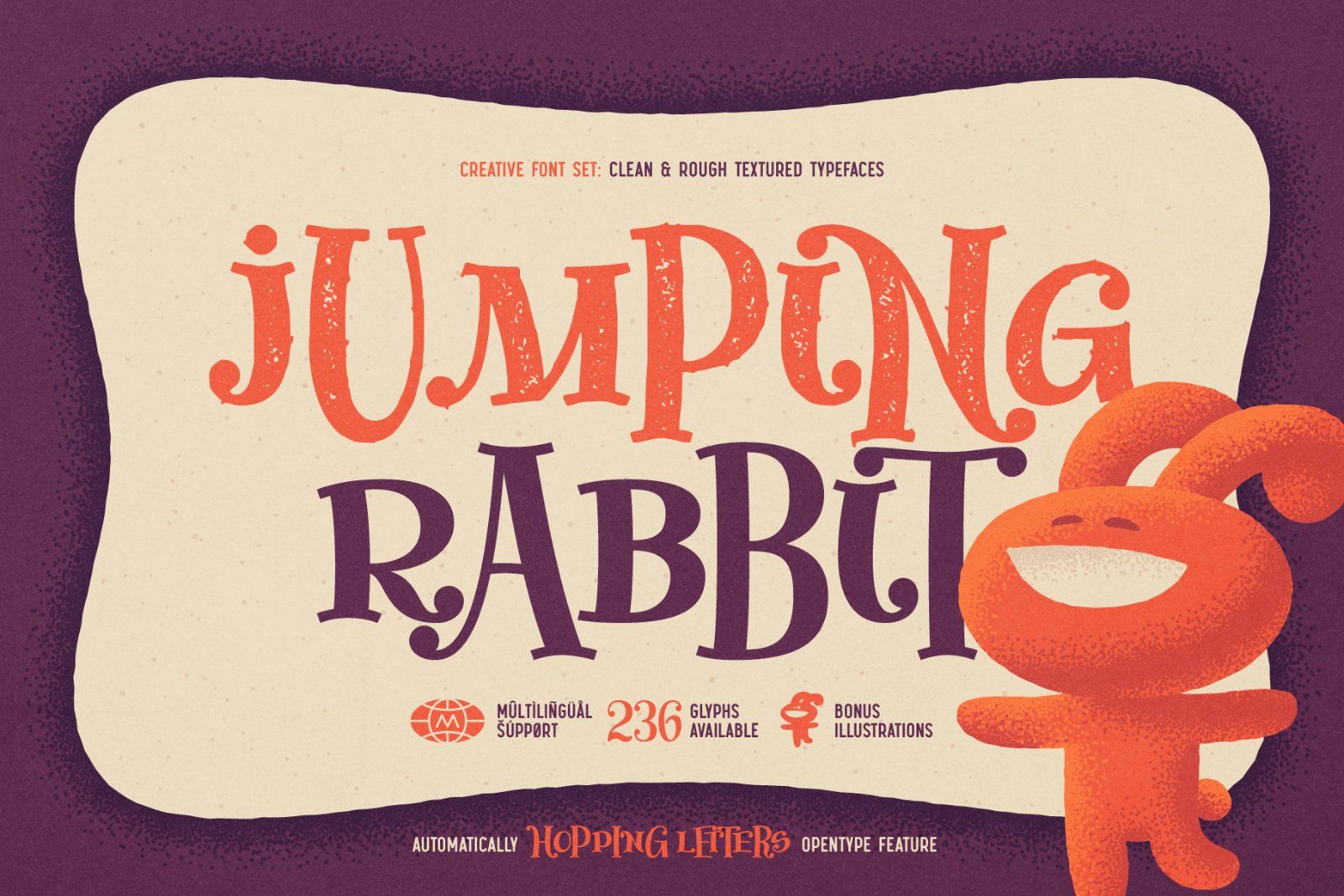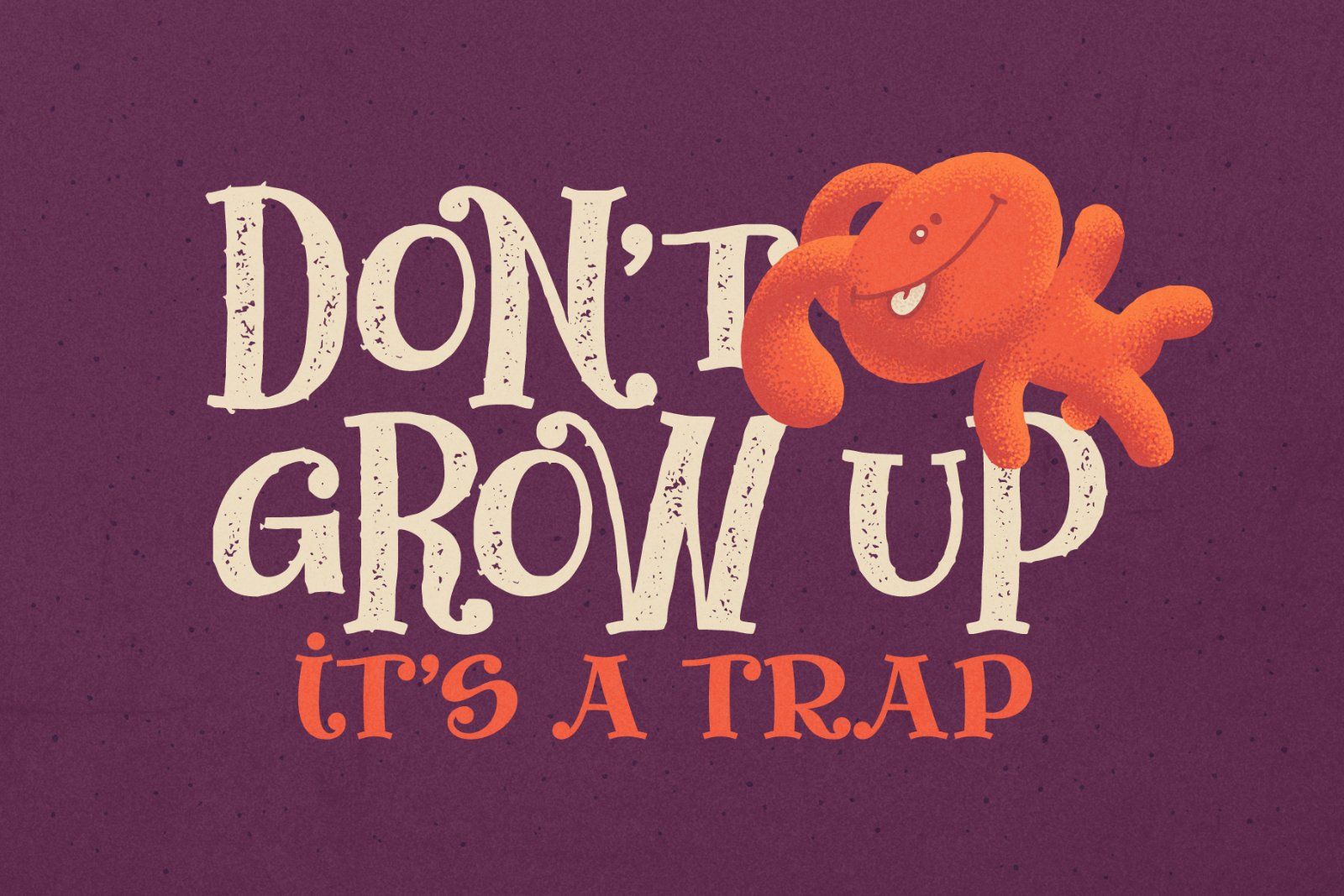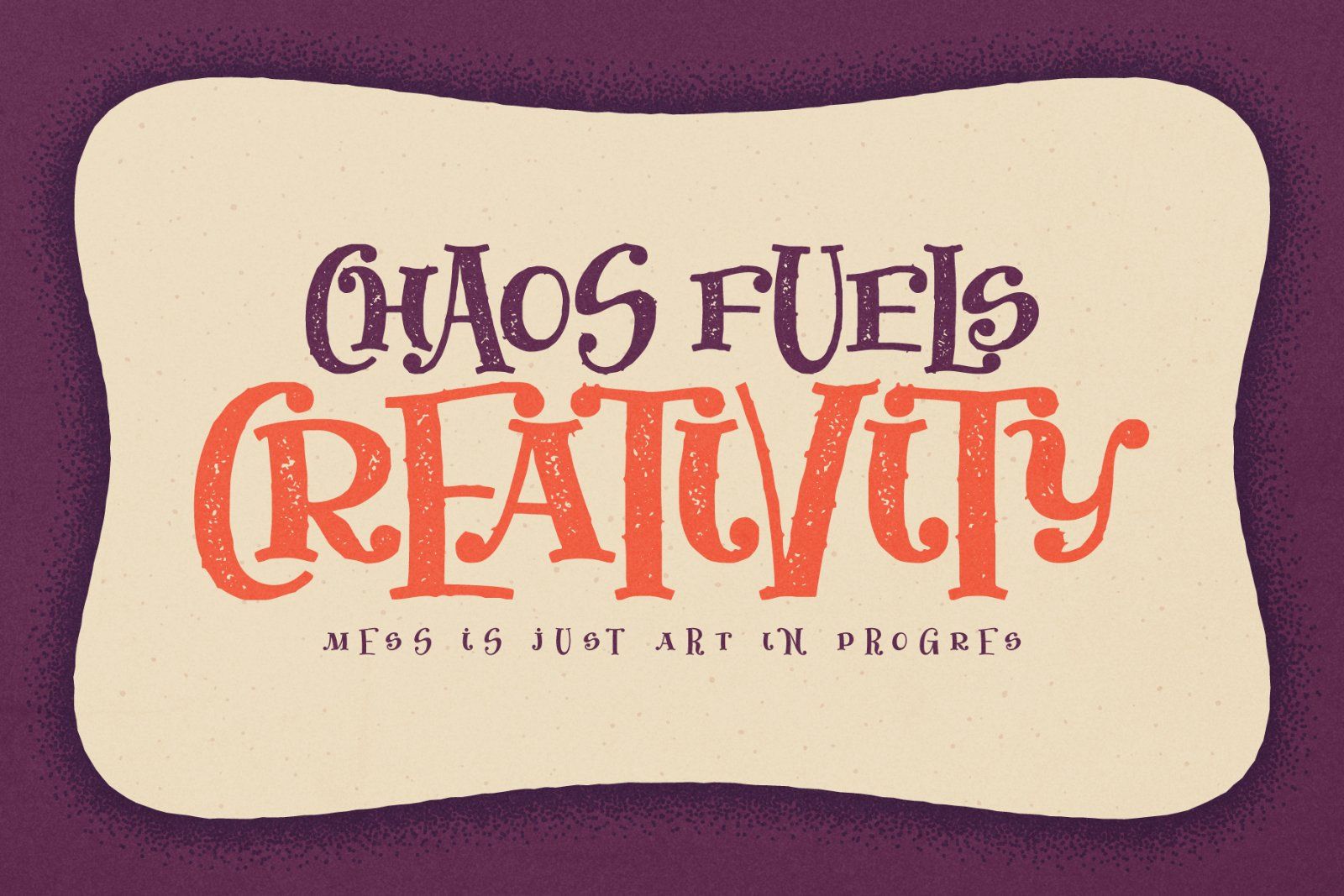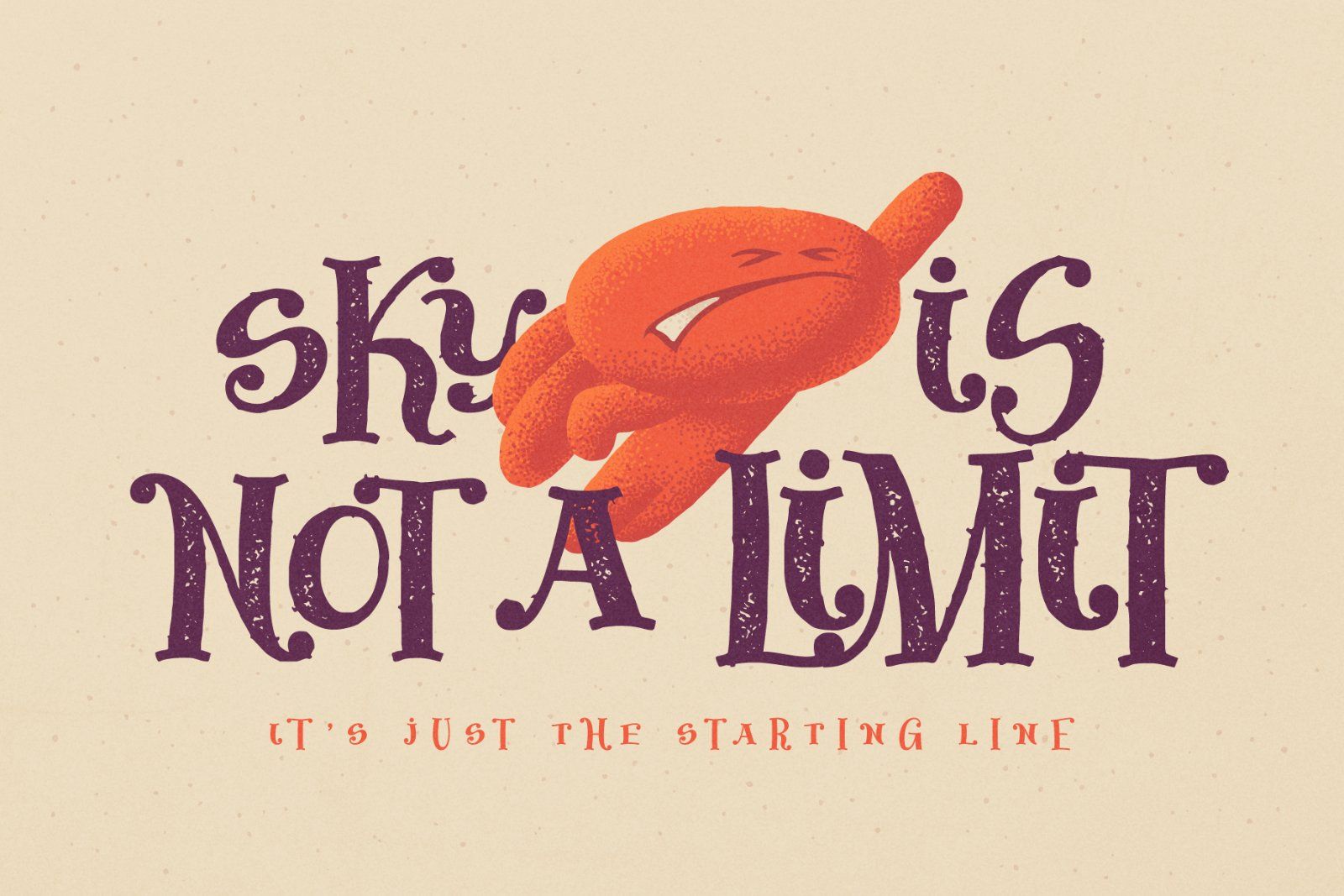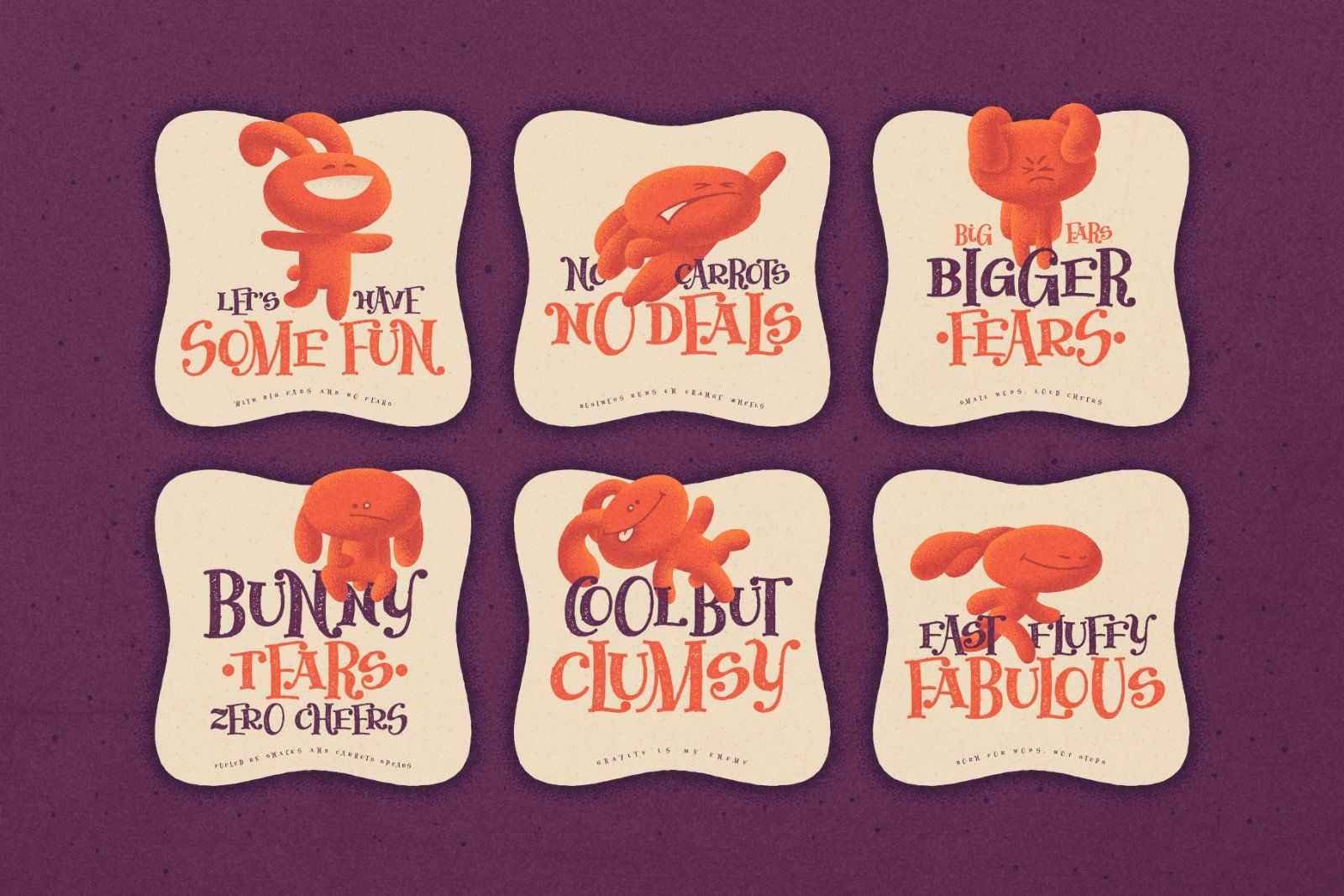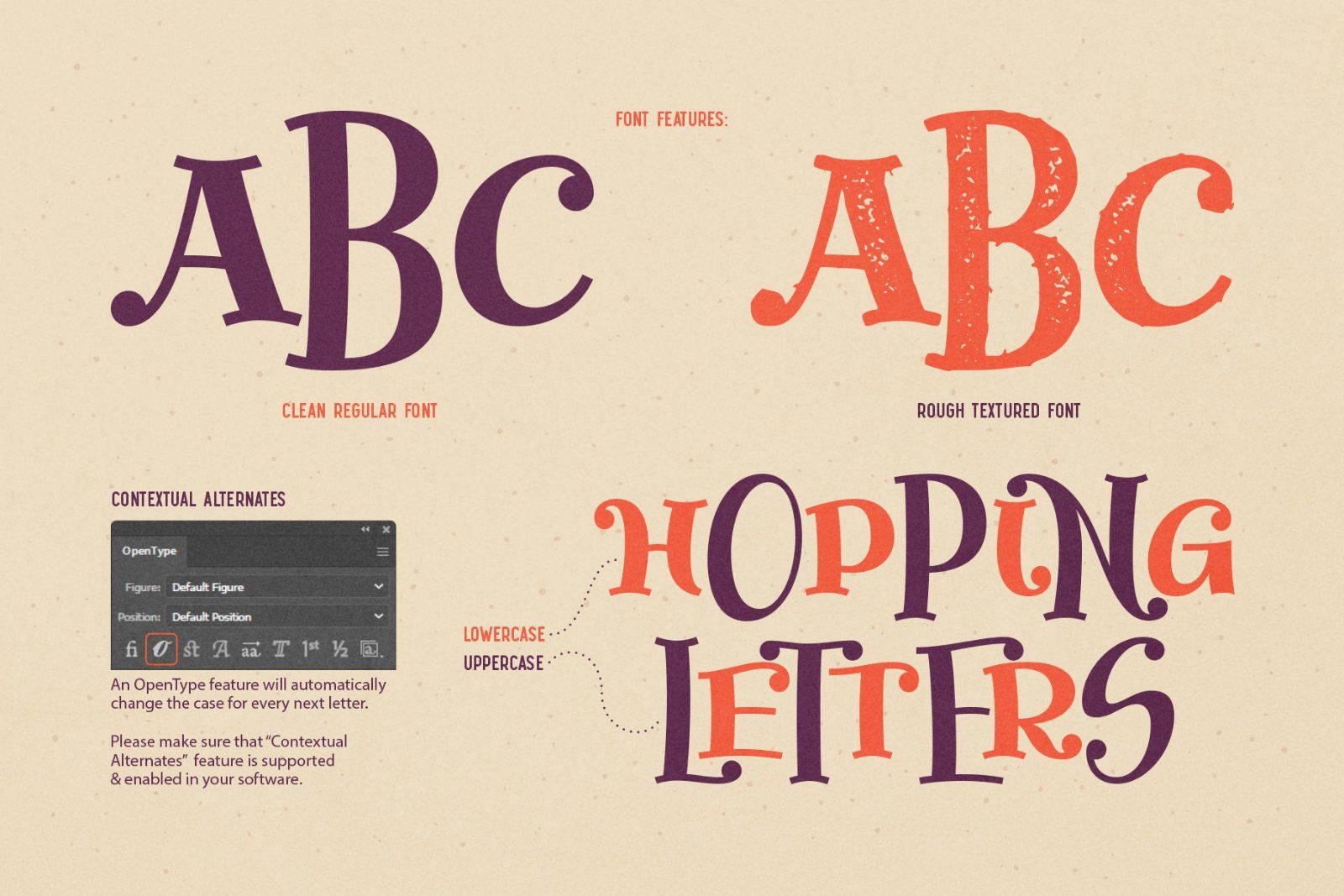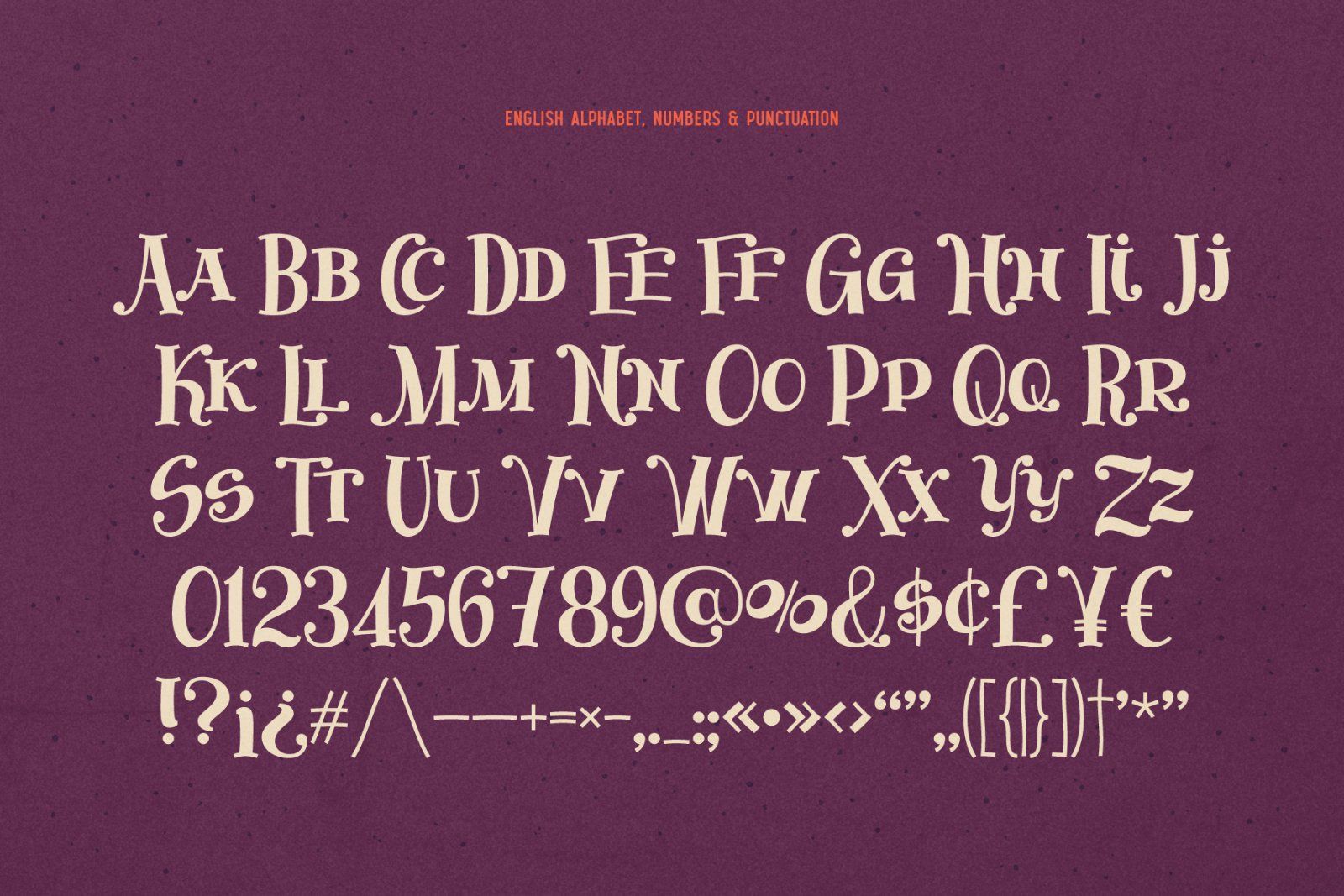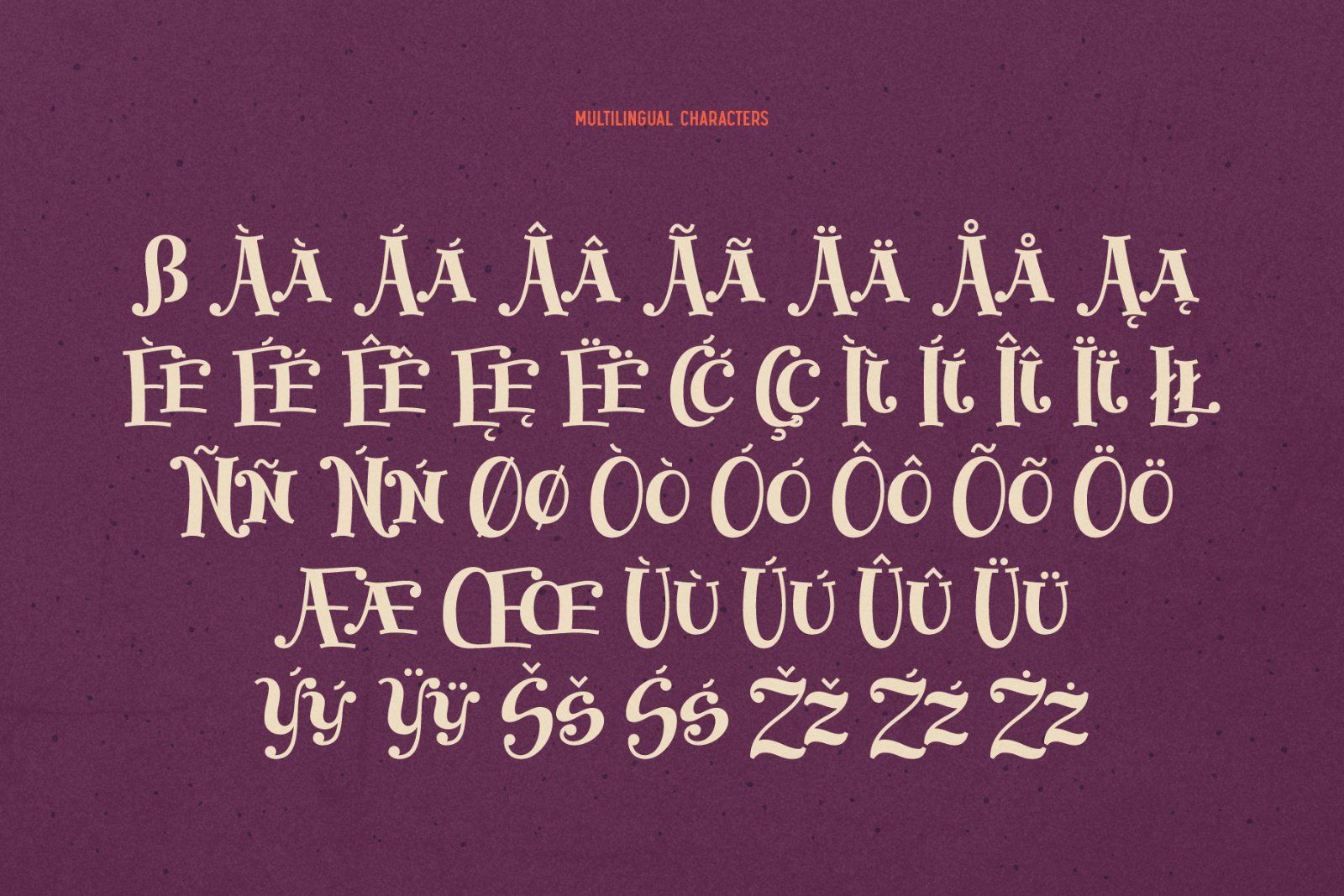
Hi! Meet Jumping Rabbit — a funny font set with playful, hopping letters in a cartoon style. It brings a cheerful, childlike vibe and works perfectly for a variety of text compositions, adding originality and creativity to your designs.
An OpenType feature will automatically change the case for every next letter. Please make sure that “Contextual Alternates” feature is supported & enabled in your software.
The Jumping Rabbit set includes two fonts: Clean Regular and Textured Rough. Each font contains 236 glyphs and supports multiple languages — check the screenshot to view the full character set!